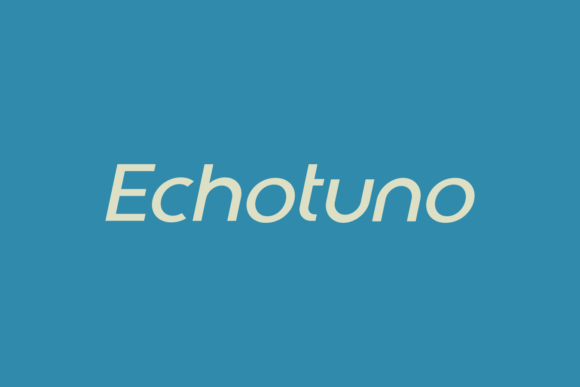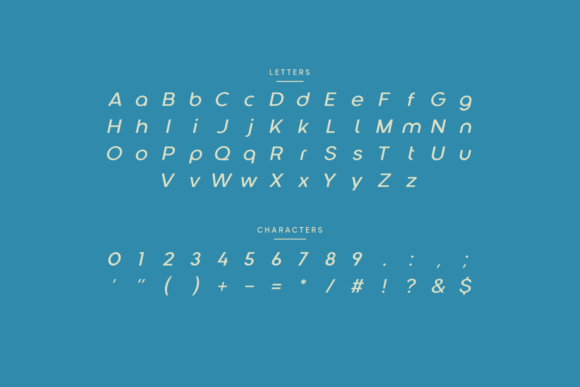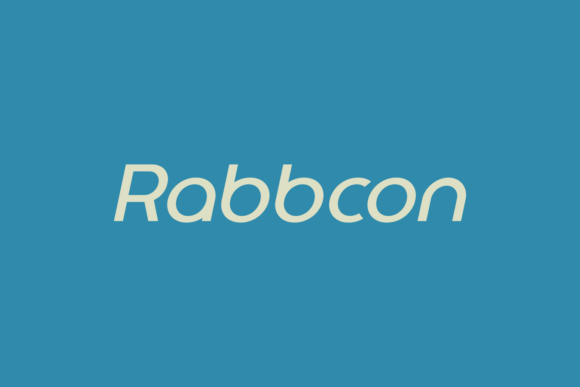
Quaroy Font – Free Download
Introduction to Quaroy Font
**Quaroy** is a modern sans-serif typeface crafted for professional branding and corporate design.
| 👤 Author | adabsubandi |
Featuring a full range of weights from Thin to Bold, it combines clean lines with versatile functionality, making it ideal for logos, visual identities, and sophisticated branding needs .
Key Features of Quaroy Font
Why Choose Quaroy Font?